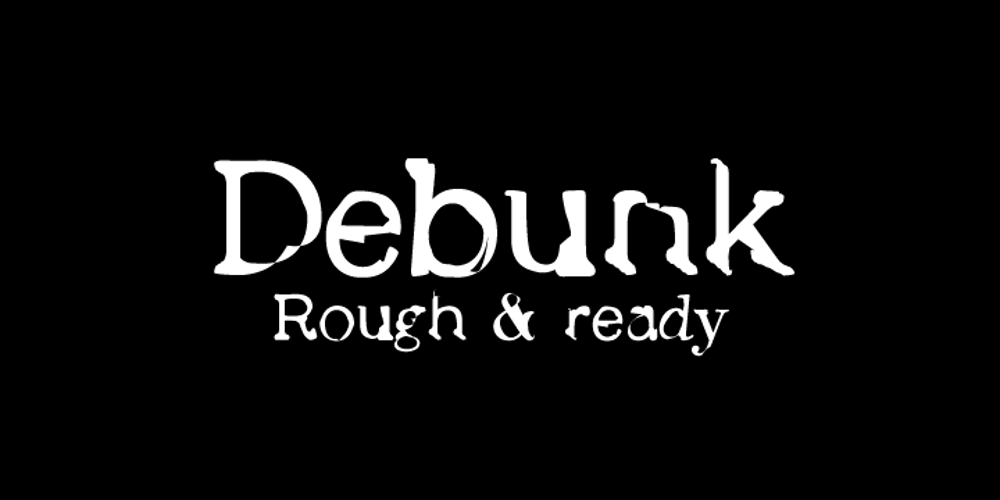
Debunk
Debunk font
Debunk Font Family was designed by Matt Grey and published by Matt Grey Design. Debunk contains 4 styles and family package options. Debunk is made to look (mis)printed, like a faulty, worn out and mixed up letterpress or typewriter. The typeface is ideal for stationary branding, labels, band artwork or album covers as well as endless other uses.